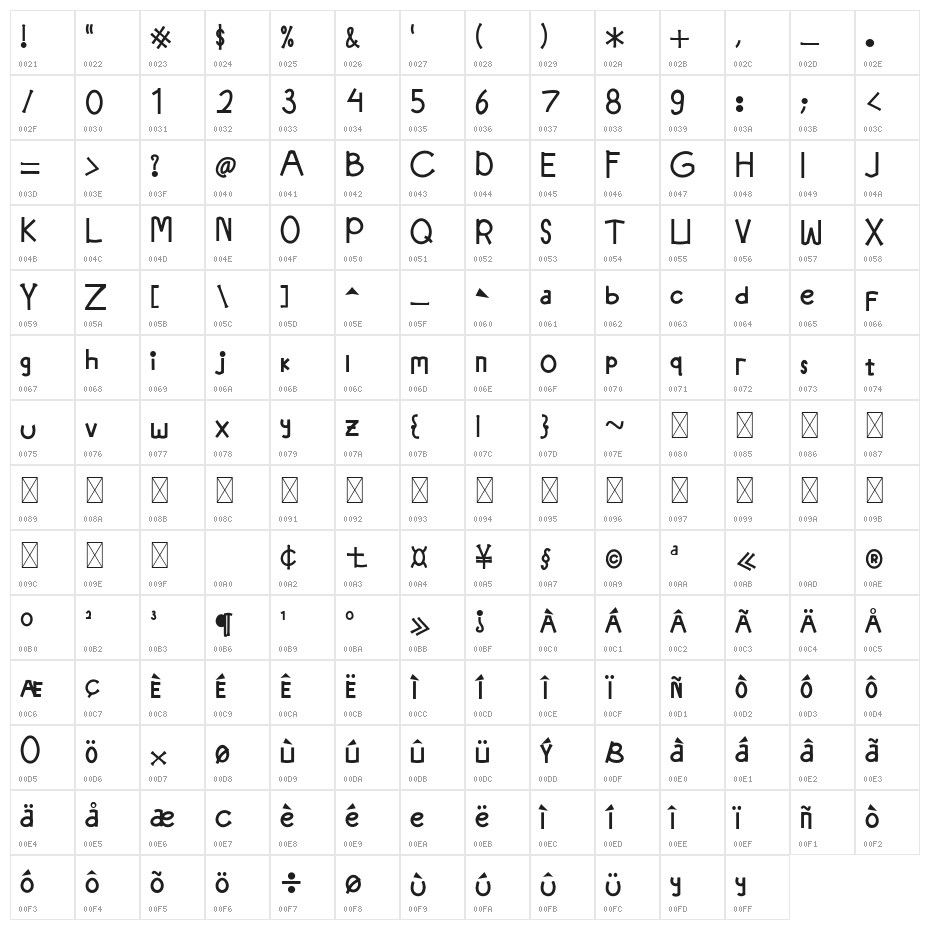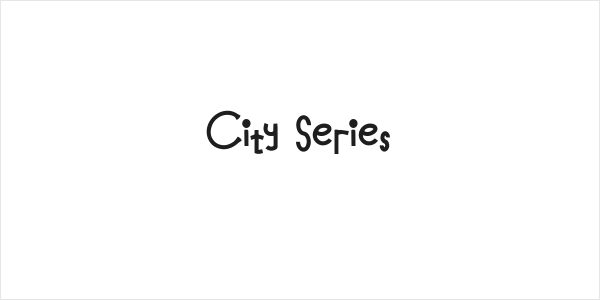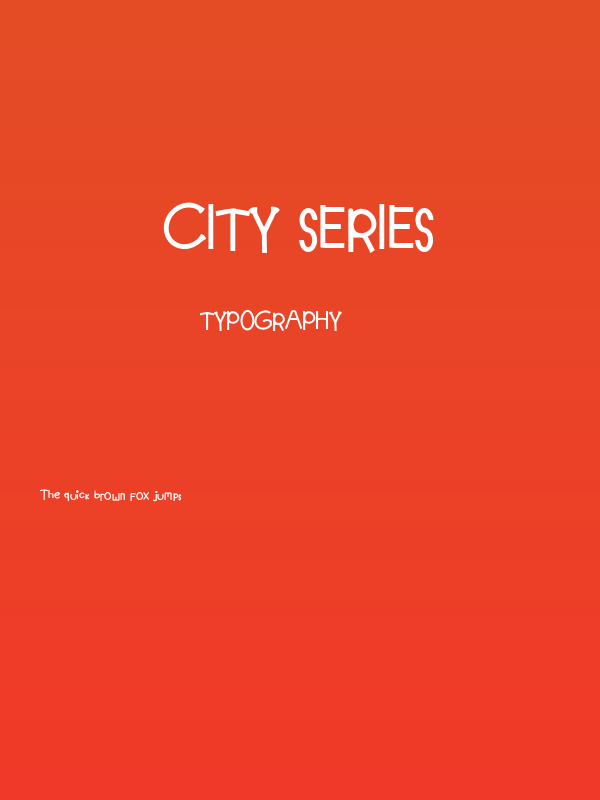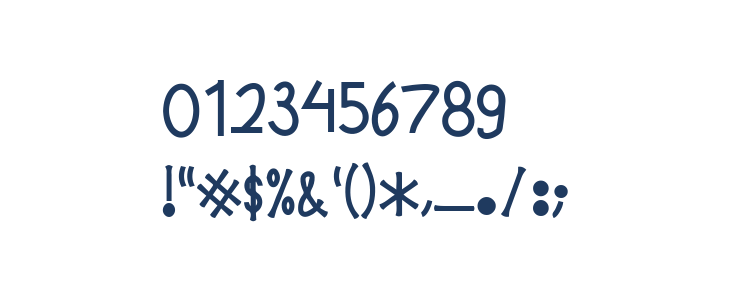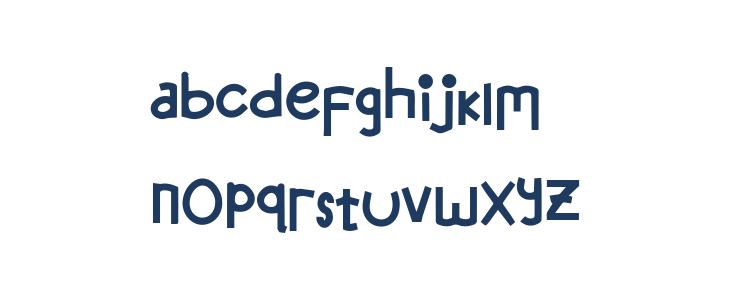
City Series Font
City Series Description
This font exhibits a playful and quirky style with its uneven strokes and whimsical character shapes. The uppercase letters are bold and slightly irregular, giving a hand-drawn appearance. The lowercase letters maintain this playful aesthetic, with some characters featuring unique loops and curves. Numbers are consistent with the overall style, adding to the font's charm. Special characters are creatively designed, enhancing the font's decorative appeal. This font is ideal for projects that require a fun and informal touch, such as children's books, playful branding, or creative posters.
| Overall Style | Playful, Whimsical, Hand-drawn |
| Proposed Projects | Children's books, playful branding, creative posters, informal invitations. |